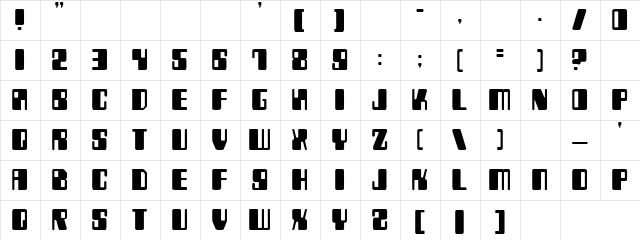
Leading Edge Regular
Design Context for Leading Edge Typeface
Leading Edge is a composed and adaptable typeface that performs quietly and consistently across a wide range of design contexts.